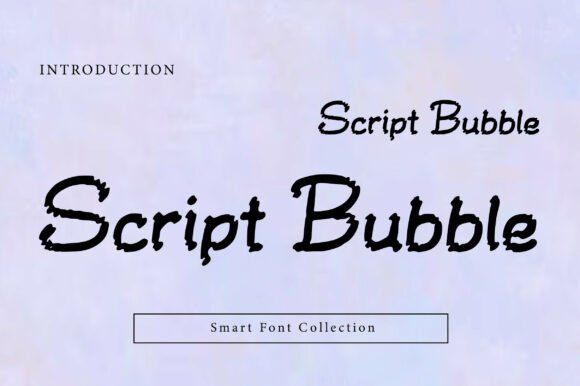
Script Bubble: A Creative Font for Campaigns
The clock was ticking down to the launch of our seasonal wellness retreat, and the social media feed looked dangerously sterile. We had high-resolution photography of yoga mats in golden hour light and a compelling offer, but the headline text on the Instagram story felt flat. It was a standard sans serif—clean, legible, but utterly forgettable in a sea of digital noise. I needed something that could capture the organic, fluid energy of the brand without sacrificing readability. That is when I pulled Script Bubble into the design workflow.
This isn't just another decorative typeface; it is a strategic asset for marketers who understand that visual texture drives engagement. As I dropped the font into the layout, the difference was immediate. The irregular, hand-drawn weight of the letters added a layer of human connection that polished geometric fonts simply cannot replicate. In this review, I will walk you through how Script Bubble performed in a real campaign context, where it shines, where it struggles, and how to pair it effectively for maximum impact.
Visual Personality and Campaign Mood
When selecting a display font for a promotional graphic, you are essentially choosing the emotional tone of your message before a single word is read. Script Bubble exudes an artistic charm that sits comfortably between playful and professional. Its defining characteristic is the blend of fluid script motion with a textured, bubble-like weight. Unlike traditional calligraphy which can feel rigid or overly formal, this typeface feels like it was sketched in real-time by a creative director.
In the context of our wellness retreat campaign, this personality was crucial. We weren't selling a corporate seminar; we were inviting people to an experience. The rounded edges and slight imperfections in the stroke width of Script Bubble communicated approachability and warmth. For brands operating in lifestyle, creative services, education, or boutique retail, this font acts as a visual handshake. It tells the audience, "We are human, we are creative, and we care about details." This is why it falls squarely into the category of premium Fonts designed for modern typography systems that prioritize brand identity over strict uniformity.
Performance in Social Media Graphics
The true test of any creative font is its performance in fast-scrolling environments. I tested Script Bubble across several formats: Instagram Stories, Pinterest pins, and YouTube thumbnails. On mobile screens, where attention spans are measured in milliseconds, the font's boldness worked in our favor. The thick strokes ensured that even at smaller sizes, the text remained distinct against busy backgrounds.
For the Instagram carousel, I used Script Bubble for the primary hook: "Breathe Deeper." The text popped immediately, creating a strong visual hierarchy that guided the eye toward the "Swipe Up" call-to-action. However, a critical lesson emerged during the mobile preview phase. While the font is excellent for headlines and short copy, it requires generous spacing. When I initially set the tracking too tight, the bubbly nature of the letters began to clash, reducing legibility. By increasing the letter-spacing slightly and ensuring a high-contrast background, the text became crisp and engaging.
On YouTube, the thumbnail is your only chance to stop the scroll. Using Script Bubble for the main title allowed us to stand out against the sea of bold, blocky text that dominates the platform. The handwritten aesthetic suggested authenticity, which is often a key driver for click-through rates in educational or personal development niches. It proved that a well-chosen script font can be just as powerful as a heavy sans serif if applied correctly.
Strategic Use Cases and Limitations
While Script Bubble is a versatile tool, it is not a universal solution. Understanding its limitations is just as important as knowing its strengths. This typeface excels as a display element. It is perfect for logo design, editorial headers, packaging design concepts, and campaign labels. In our email promotion, using Script Bubble for the subject line header created a sense of exclusivity and excitement that increased open rates compared to our previous plain-text campaigns.
However, do not attempt to use Script Bubble for body copy. The irregular shapes and varying weights make it difficult to read in long paragraphs. If you need to explain terms and conditions, detailed product specifications, or complex webinar agendas, stick to a clean sans serif or a classic serif font. Trying to force Script Bubble into dense information blocks will hurt your user experience and dilute your message clarity.
Furthermore, consider the formality of your brand. If you are a law firm or a financial institution, the whimsical nature of this handwritten font might undermine your authority. It is best suited for campaigns that benefit from a touch of personality, such as product teasers, sale announcements, quote graphics, and content series introductions. It works beautifully as a supporting typography element to break up the monotony of a grid layout.
Font Pairing and Design Hierarchy
To maintain a cohesive brand identity, pairing Script Bubble with the right secondary typeface is essential. In my workflow, I found that a neutral, geometric sans serif provided the perfect counterbalance. The simplicity of the sans serif allowed the complexity of Script Bubble to take center stage without overwhelming the viewer. This combination creates a modern typography system that feels both curated and accessible.
In the end, Script Bubble proved to be more than just a decorative choice for our retreat launch. It was a strategic decision that elevated the perceived value of the offer and resonated with our audience on an emotional level. By understanding its strengths in display roles, respecting its limitations in body text, and pairing it wisely, you can harness its artistic charm to create campaigns that truly stand out in a crowded digital landscape.